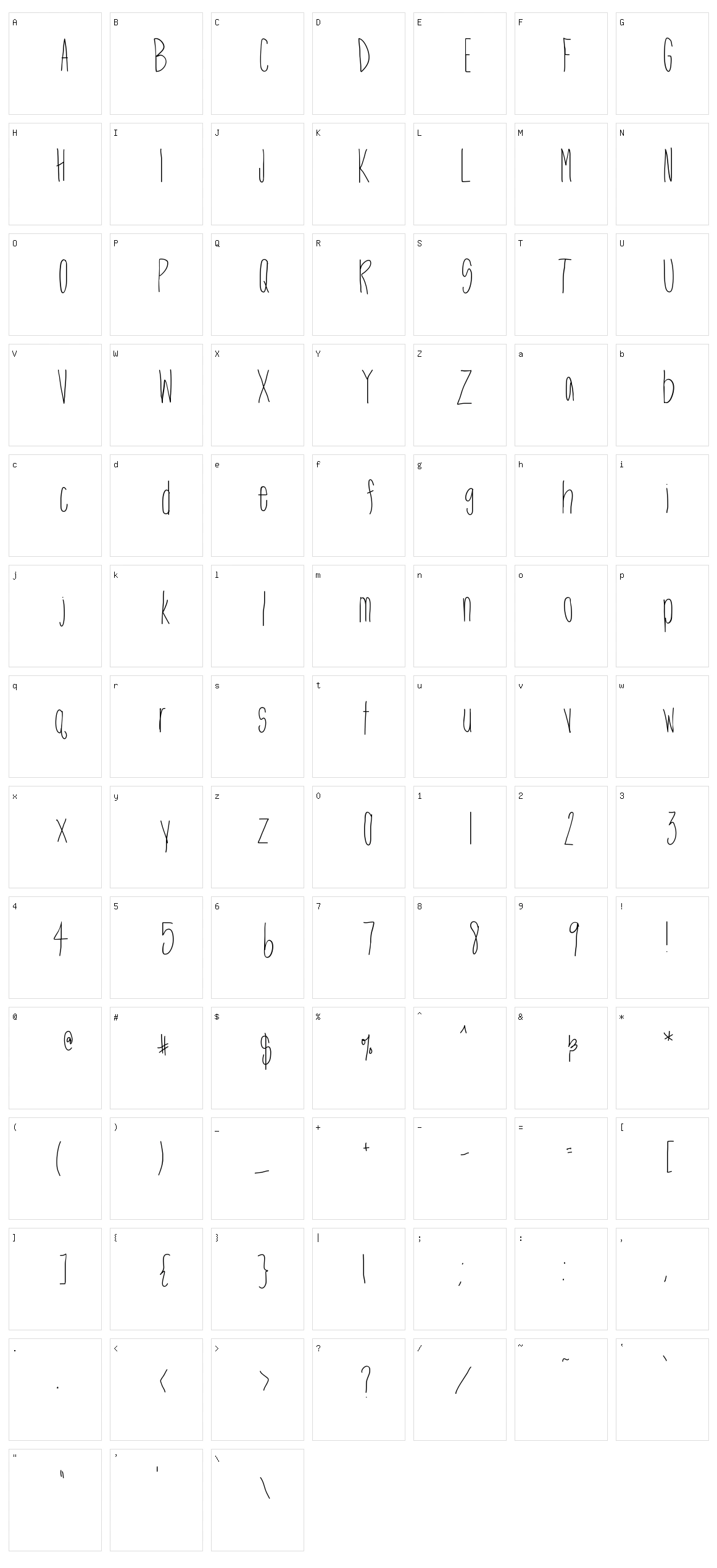
The free font Ht Skinny Me is carefully designed by Holly Trimmer, showcasing a thoughtful balance of creativity and usability and falls under the Script font style. When you download the ZIP file, it contains only 13.99 KB of font files, making it lightweight and quick to download. Please review the license details below to understand permitted usage and distribution rights. If license information is not available, we recommend using this font for personal projects only or contacting the author directly for commercial usage permissions.